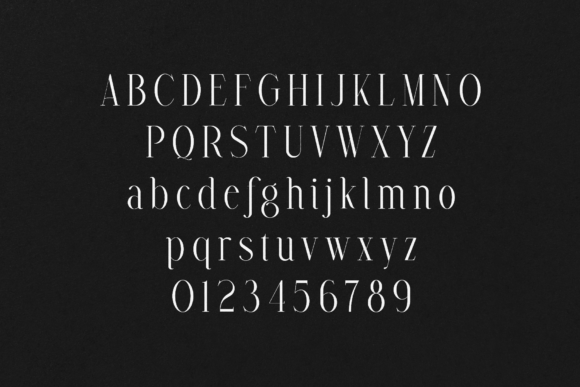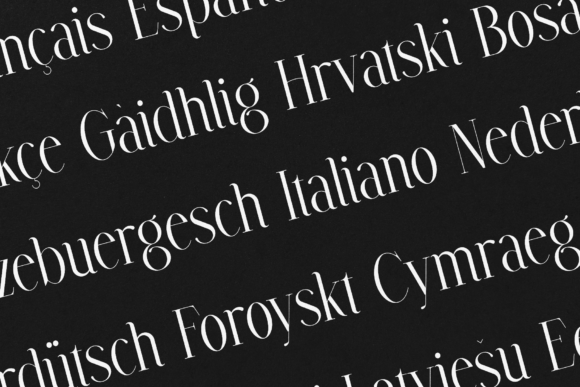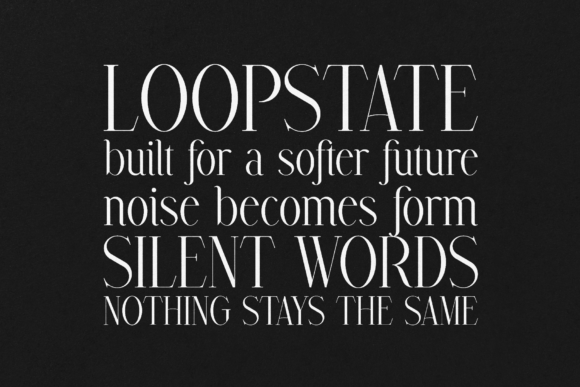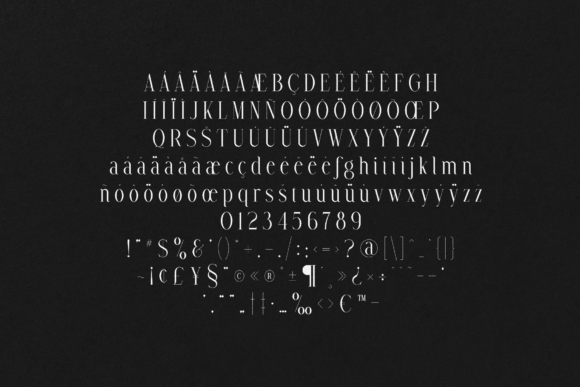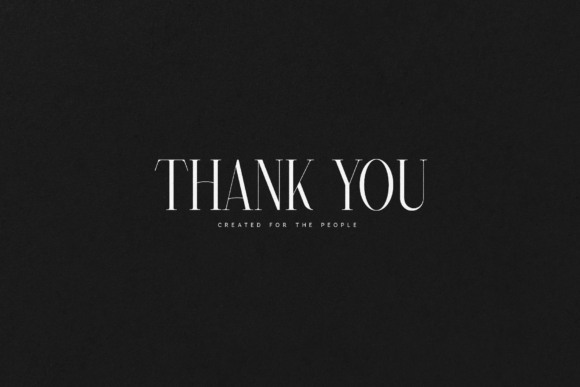
Avarice Delicate Font: Elevate Your Design with Sophistication and Elegance
In the realm of typography, few fonts manage to convey luxury, sophistication, and modernity as effortlessly as Avarice Delicate. This refined high-contrast serif typeface has been meticulously designed to cater to the needs of designers and crafters seeking to infuse their projects with a touch of elegance and poise. Whether you’re working on sophisticated branding, modern editorial design, or high-end visual projects, Avarice Delicate promises to elevate your work to new heights of aesthetic excellence.
The Essence of Avarice Delicate
Avarice Delicate stands out with its distinctive characteristics, including delicate hairlines, sculpted serifs, and graceful curves. These features combine to create a timeless yet contemporary luxury aesthetic that is hard to achieve with more conventional typefaces. The dramatic contrast between thick and thin strokes is particularly noteworthy, as it enables the creation of striking headlines that are not only visually impactful but also elegant and balanced.
A Masterclass in Modern Serif Design
The Avarice Delicate Edition font takes the core principles of serif design and pushes them into the modern era with remarkable finesse. This “Delicate Edition” feels both ethereal and commanding, a duality that is no easy feat to accomplish in typography. The result is a typeface that shines brightest in large-scale applications such as storefront signage, luxury packaging, and cinematic title sequences, where its unique character shapes can be fully appreciated.
Ideal Applications for Avarice Delicate
Given its refined and luxurious appearance, Avarice Delicate is particularly well-suited for projects that demand a high level of sophistication. Some of the ideal applications for this typeface include:
- Monograms and Logotypes: The precision and detail of Avarice Delicate make it an excellent choice for monograms or high-fashion branding, where intricacy and elegance are paramount.
- Luxury Packaging: The font’s dramatic contrast and refined features make it perfect for luxury packaging, adding an air of exclusivity and high-end quality to products.
- Cinematic Title Sequences: Avarice Delicate’s commanding presence is well-suited for cinematic title sequences, where its ethereal yet assertive character can set the tone for the narrative.
- Storefront Signage: For high-end retail or boutique brands, Avarice Delicate can add a touch of sophistication to storefront signage, enhancing the brand’s luxury appeal.
Why Choose Avarice Delicate?
The unique selling point of Avarice Delicate lies in its ability to make any word written in it feel like a piece of bespoke art. The letterforms exude a sense of poise and confidence, making them fashion-forward and highly appealing to designers and crafters working in luxury markets. Here are a few reasons why Avarice Delicate should be your go-to typeface for luxury projects:
- Unique Character Shapes: The font’s distinctive character shapes ensure that your designs stand out with a bespoke quality that’s hard to replicate with standard typefaces.
- Elegance and Balance: Avarice Delicate strikes the perfect balance between elegance and assertiveness, making it versatile for a wide range of luxury applications.
- Precision and Detail: The meticulous design of Avarice Delicate ensures that every detail, no matter how small, contributes to a cohesive and luxurious aesthetic.
Avarice Delicate is more than just a typeface; it’s a design statement that speaks of luxury, sophistication, and modernity. Its delicate hairlines, sculpted serifs, and graceful curves come together to create a refined high-contrast serif typeface that is as timeless as it is contemporary. Whether you’re a designer looking to elevate your branding projects or a crafter aiming to add a touch of elegance to your creations, Avarice Delicate offers a world of possibilities. By incorporating this exquisite typeface into your work, you’re not just choosing a font; you’re embracing a design philosophy that values beauty, precision, and the art of making a lasting impression.